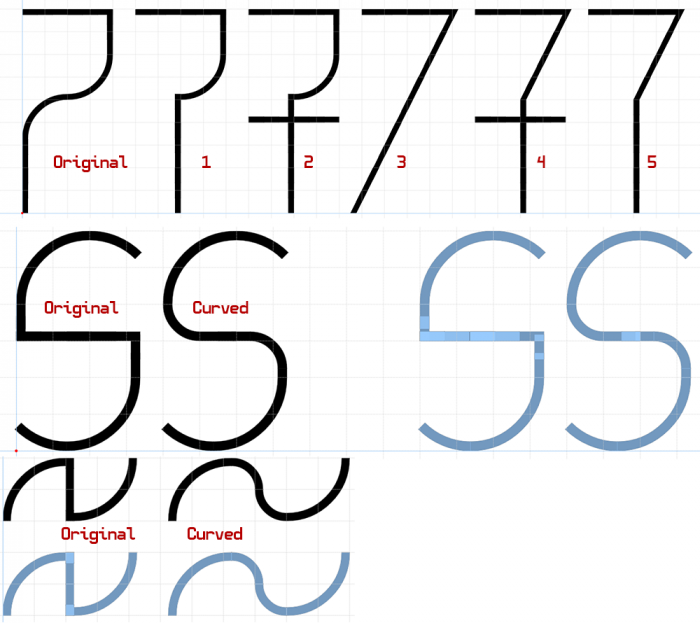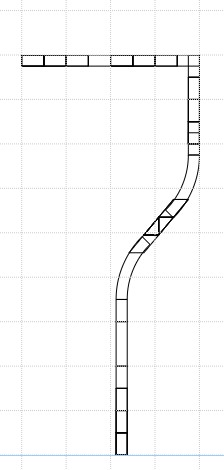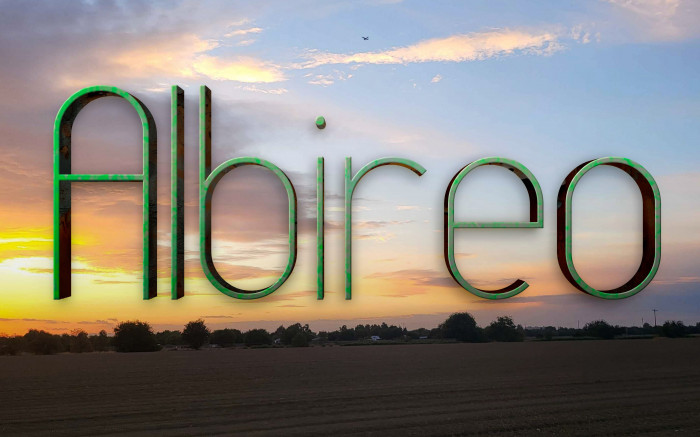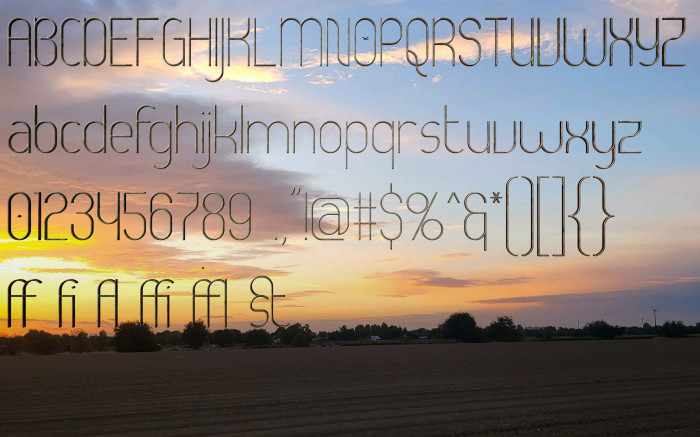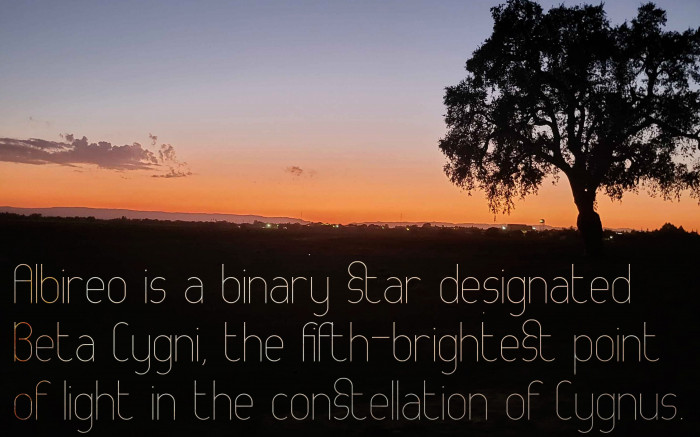
New thin font I'm working on. Still a rough draft, I don't like some letters like "w" and "s". More letters and samples coming soon. This one was created completely from scratch in about an hour today, home sick from work. Makes extensive use of composites, stacking, and nudging. Pretty usable for text even at small sizes. Let me know what you think.
Yup, I'm with frodo on this one, thin diagonals are nearly impossible to create from stacked composites without having slight different stroke weights. To work around this issue and still be able to implement the diagonals its best to compile these by way of nudging/rotating individual bricks into place within a 2x2 filter environment. This process can be ultra puzzly to be honest, but al least this does allows you to achieve equal stroke weights.
About your font so far, cool clean hairline design, I always love the elegance of these style!
Decided to "fix" this problem by removing all the offending diagonals, now this font is curvier then ever. I think I like it a little better this way, but I still preserved the original version as a TTF file.
That would be too angular, a more upright slope would work tho, another solution would be to have the stem drop down in the glyphs center rather than to extend all the way left to touch the side bearing like it does right now..
Hey guys, was hoping to have some feedback on which style you like the best for 7, s, and ~. I personally am leaning towards curved s and ~ and #1 variant of 7. Still not entirely sure of the right brick I would need to make to create the diagonal, or if I should restrict the font to no diagonals at all except /,#,\,%.
I know, I could not find exactly matching width for the sloped part fast, but from distance it seems to work. And for the others, I like the curved ones better.
Albireo Update 11/13/24: adjusted crossbars of "f" and "t". Added some additional characters in Latin 1 Supplement. Changed quotation marks, comma, and semicolo. Adjusted ligatures. Made the first sample.
New thin font I'm working on. Still a rough draft, I don't like some letters like "w" and "s". More letters and samples coming soon. This one was created completely from scratch in about an hour today, home sick from work. Makes extensive use of composites, stacking, and nudging. Pretty usable for text even at small sizes. Let me know what you think.
Nice work. Why are the lines uneven? Thin line font: possibly the most difficult project with Fontstruct.
Yup, I'm with frodo on this one, thin diagonals are nearly impossible to create from stacked composites without having slight different stroke weights. To work around this issue and still be able to implement the diagonals its best to compile these by way of nudging/rotating individual bricks into place within a 2x2 filter environment. This process can be ultra puzzly to be honest, but al least this does allows you to achieve equal stroke weights.
About your font so far, cool clean hairline design, I always love the elegance of these style!
PS: To point out that Frodo was absolutely right in his observation here is a image demonstration.
(Also, sorry for spamming your work again, but its with all the best intentions obviously)
Wow, I see what you mean. I may try and fix this using TypeLight, not sure if my compositing skills in FS are good enough.
Decided to "fix" this problem by removing all the offending diagonals, now this font is curvier then ever. I think I like it a little better this way, but I still preserved the original version as a TTF file.
Quite a nice design, the sort of "halved-butterfly" look to the "B" is particularly eye-catching
Nice look. I think the M could be wider, and the bottom half of 7 could be more to the right to keep it more in balance.
I'm with Yautja.
Changed M. Still thinking of something for 7
Try using the slash as the diagonal of the 7
That would be too angular, a more upright slope would work tho, another solution would be to have the stem drop down in the glyphs center rather than to extend all the way left to touch the side bearing like it does right now..
Albireo Update 11/13/24: adjusted crossbars of "f" and "t". Added some additional characters in Latin 1 Supplement. Changed quotation marks, comma, and semicolo. Adjusted ligatures. Made the first sample.